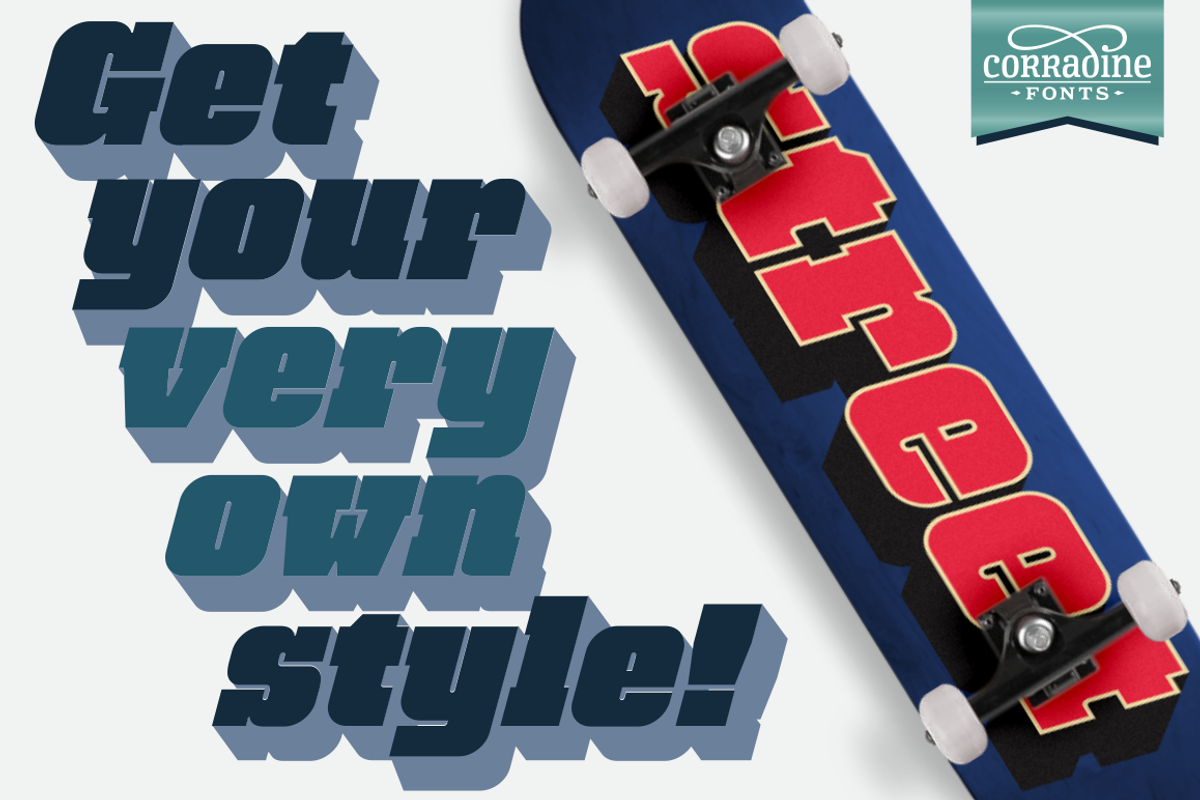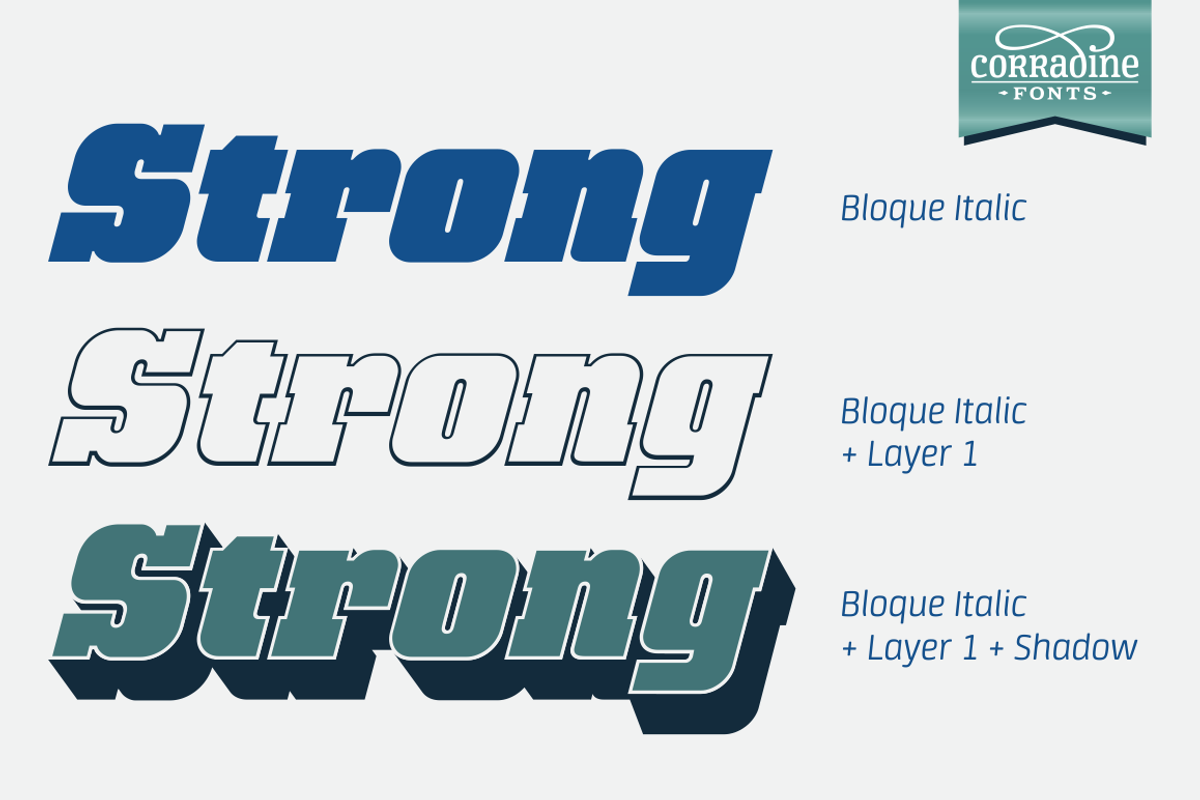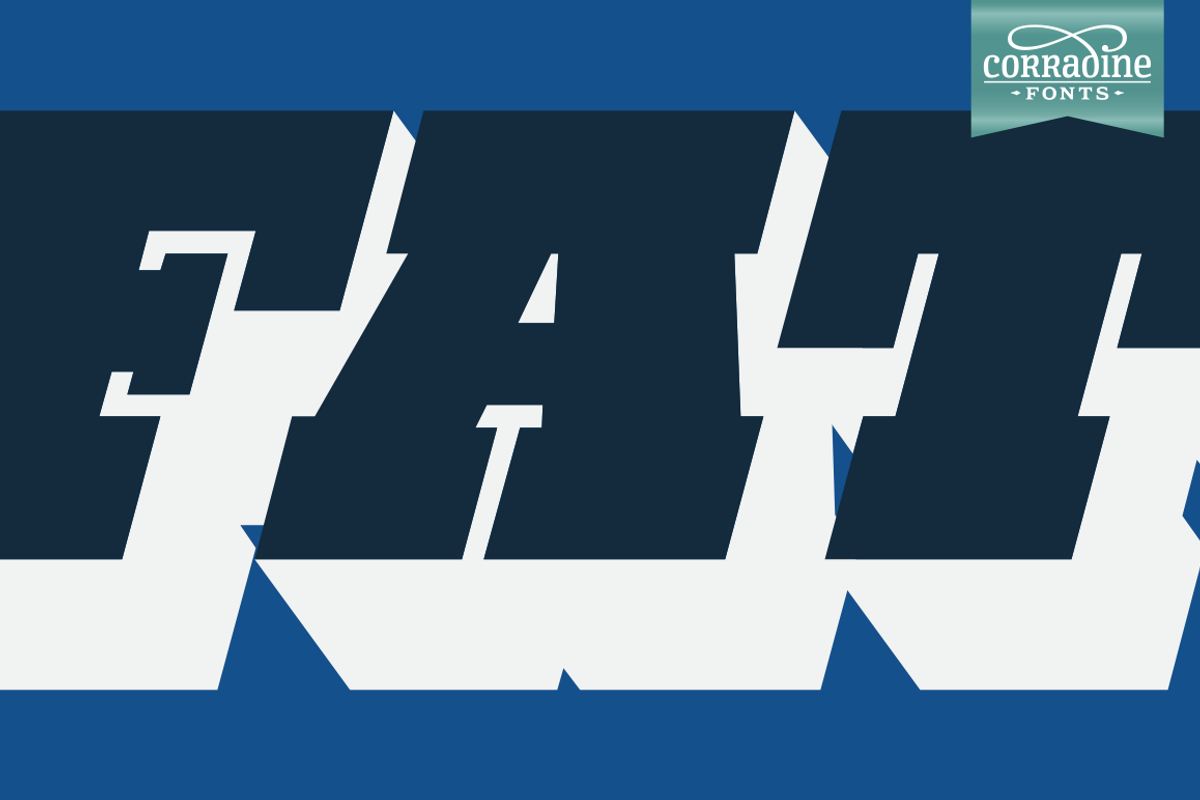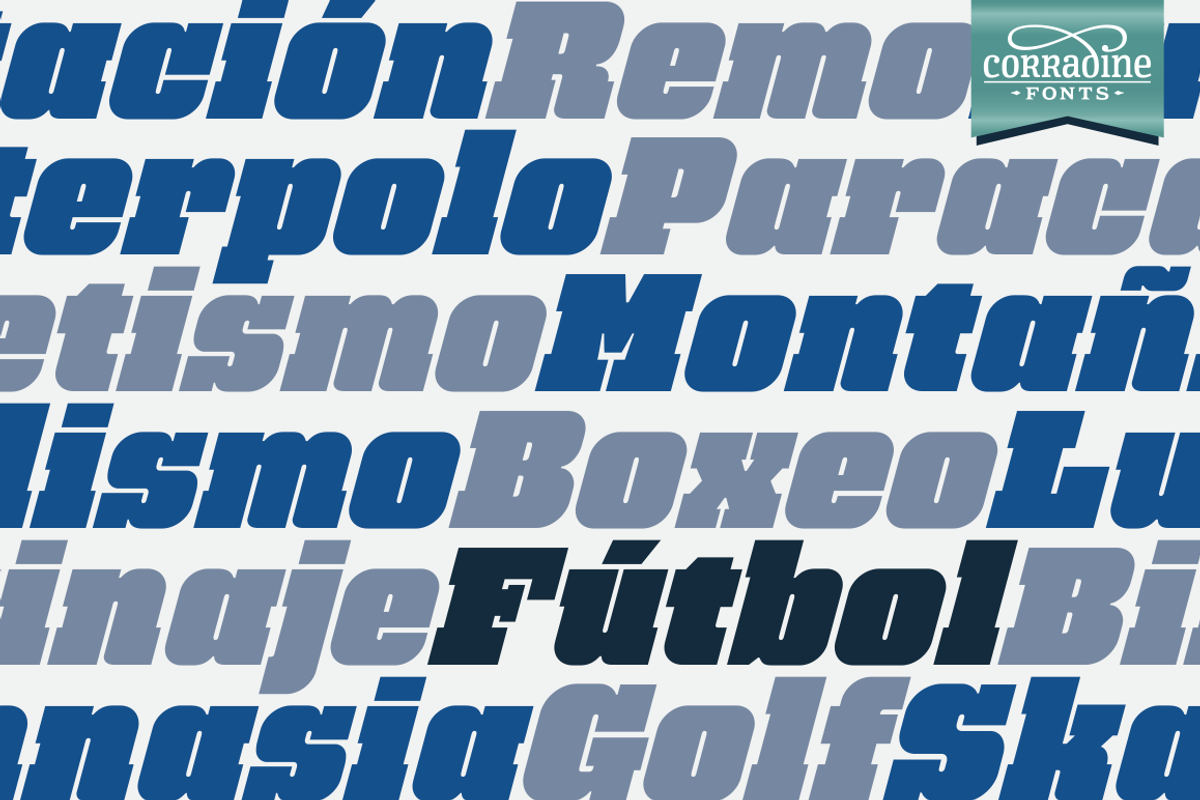
Bloque Italic
Bloque Italic by Corradine Fonts is a font selected for branding, posters, packaging, typography.
Why Bloque Italic is worth a look
Bloque Italic by Corradine Fonts fits naturally into Branding, posters, packaging, typography.